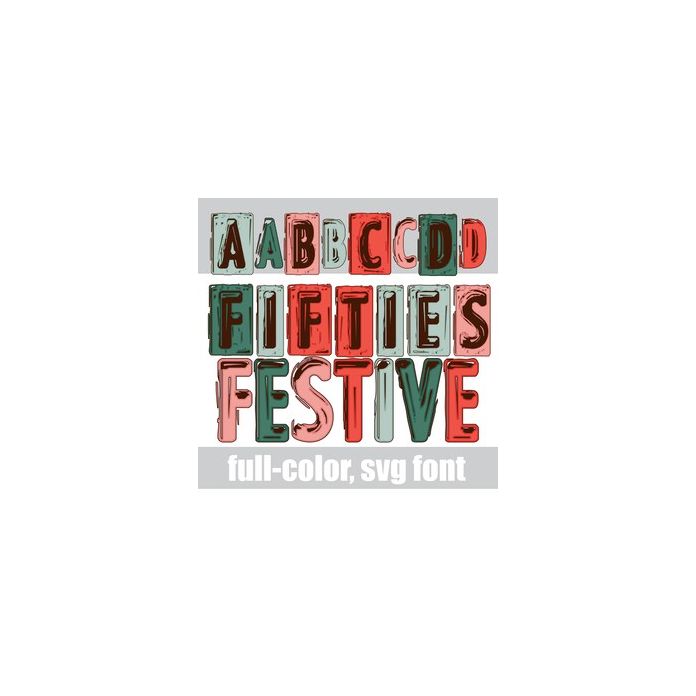
This full-color font features a rustic, metal imprinted font in a Christmas color palette. There is an alt case w/ additional colors you can access through your system or Silhouette's glyph map.